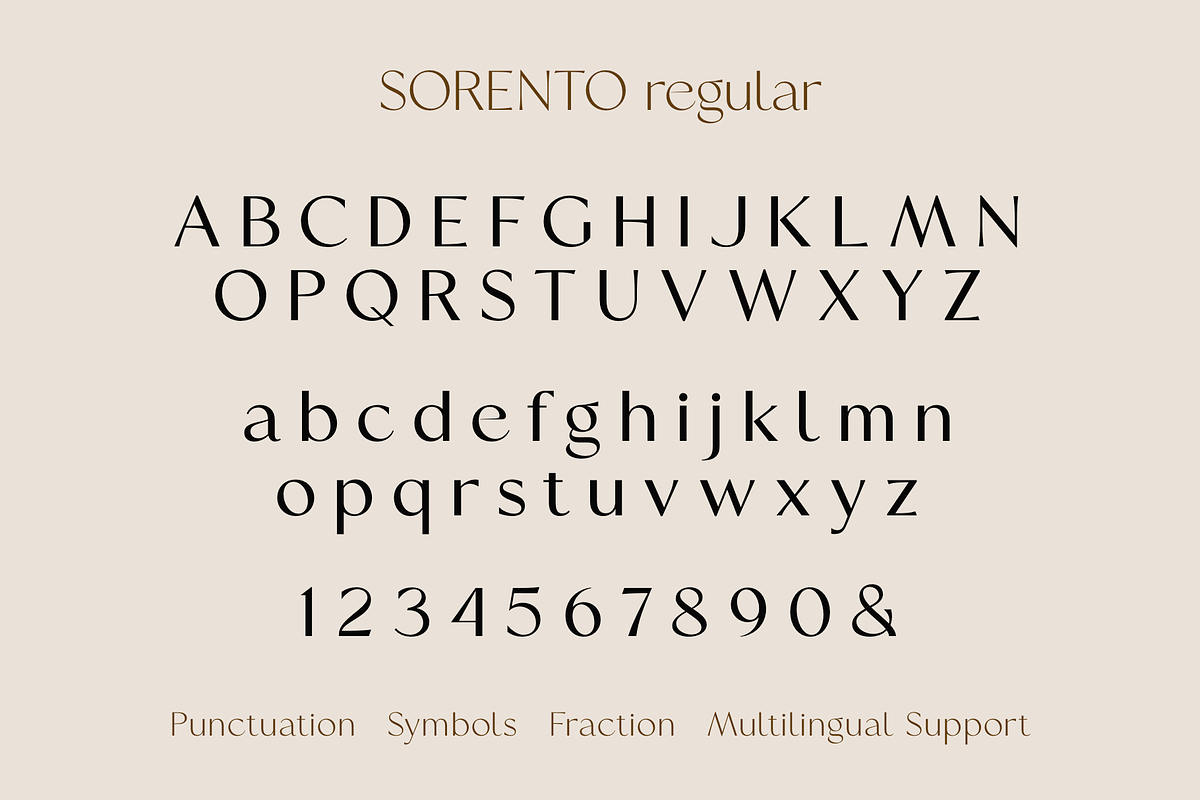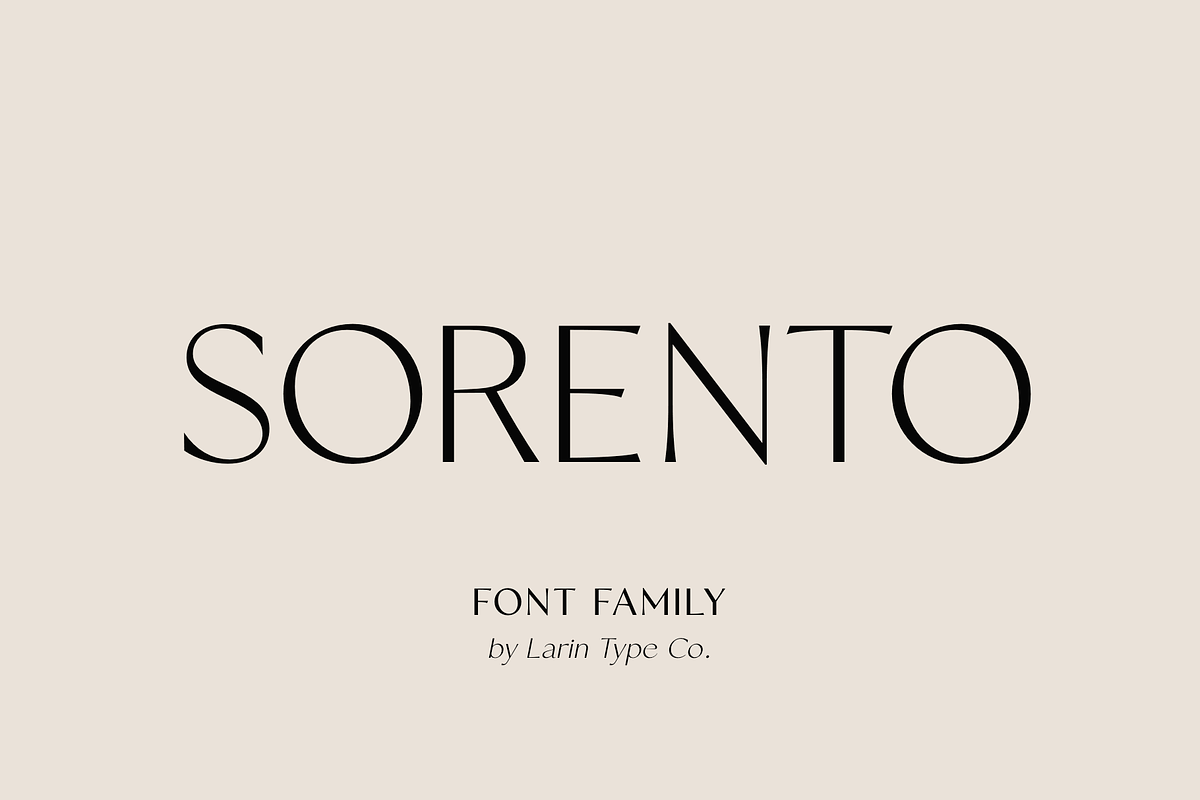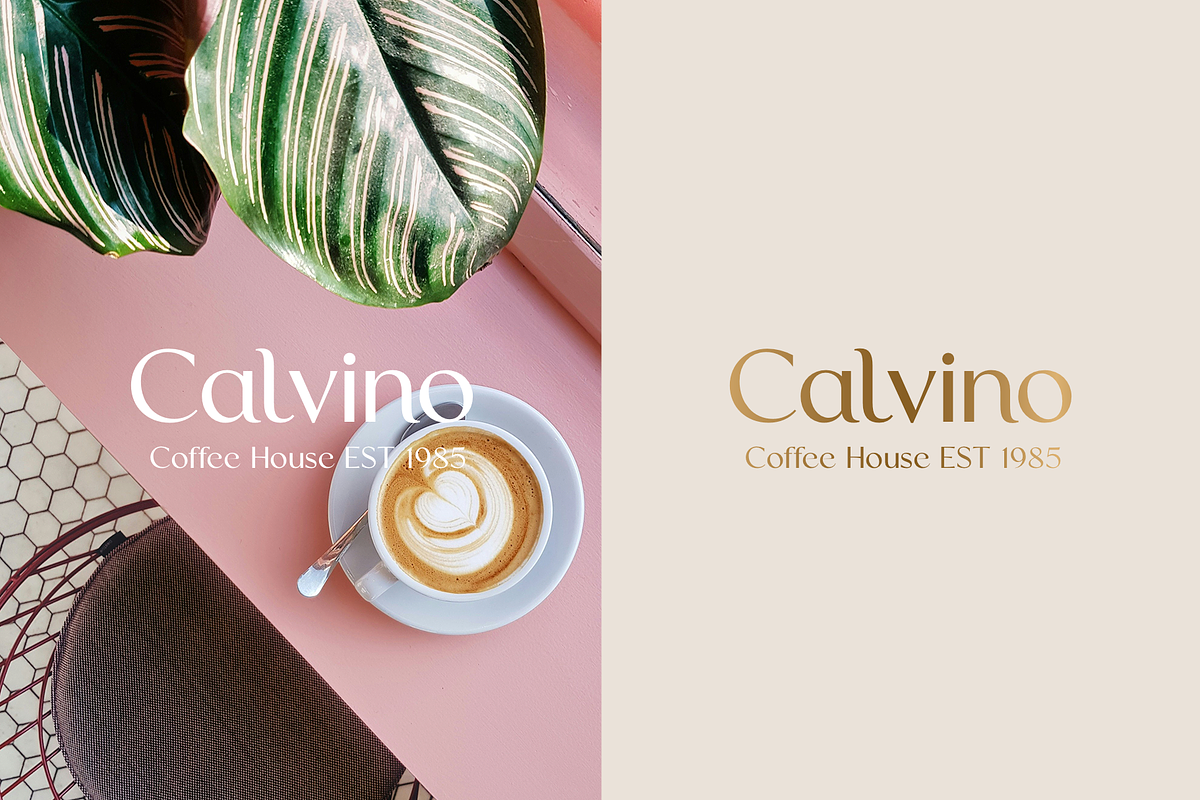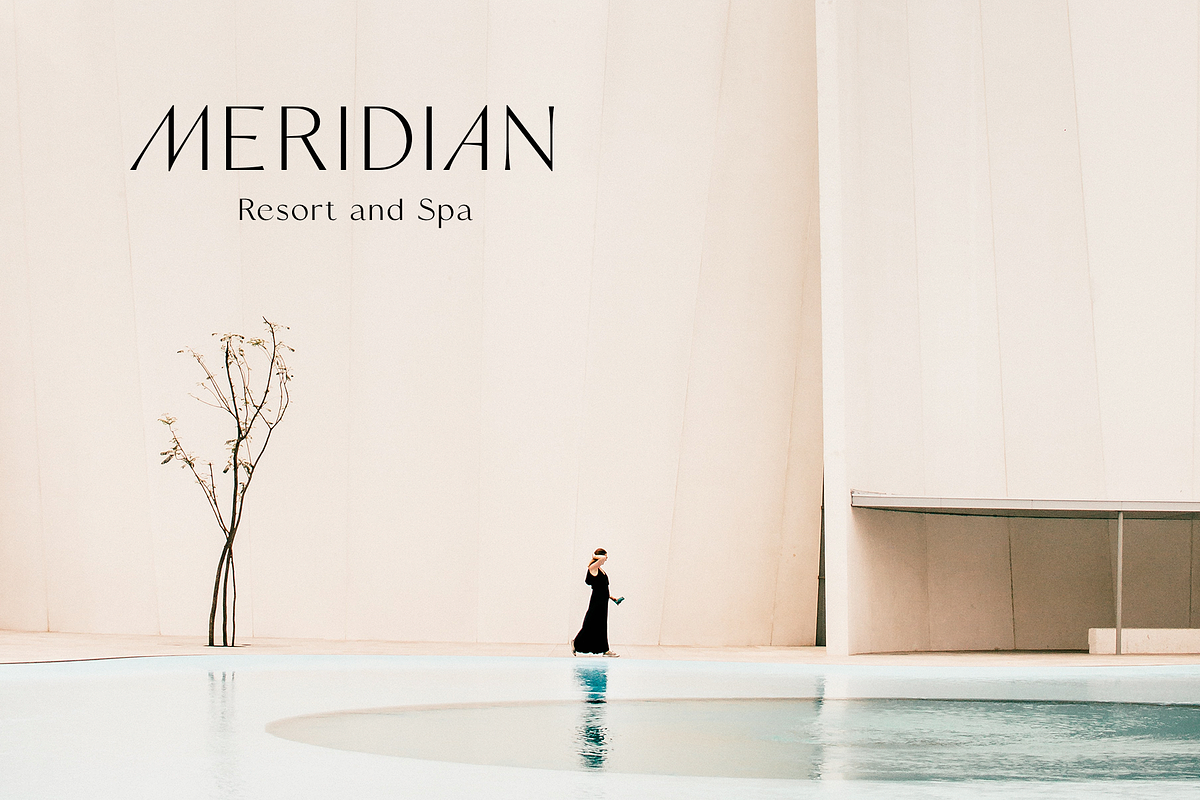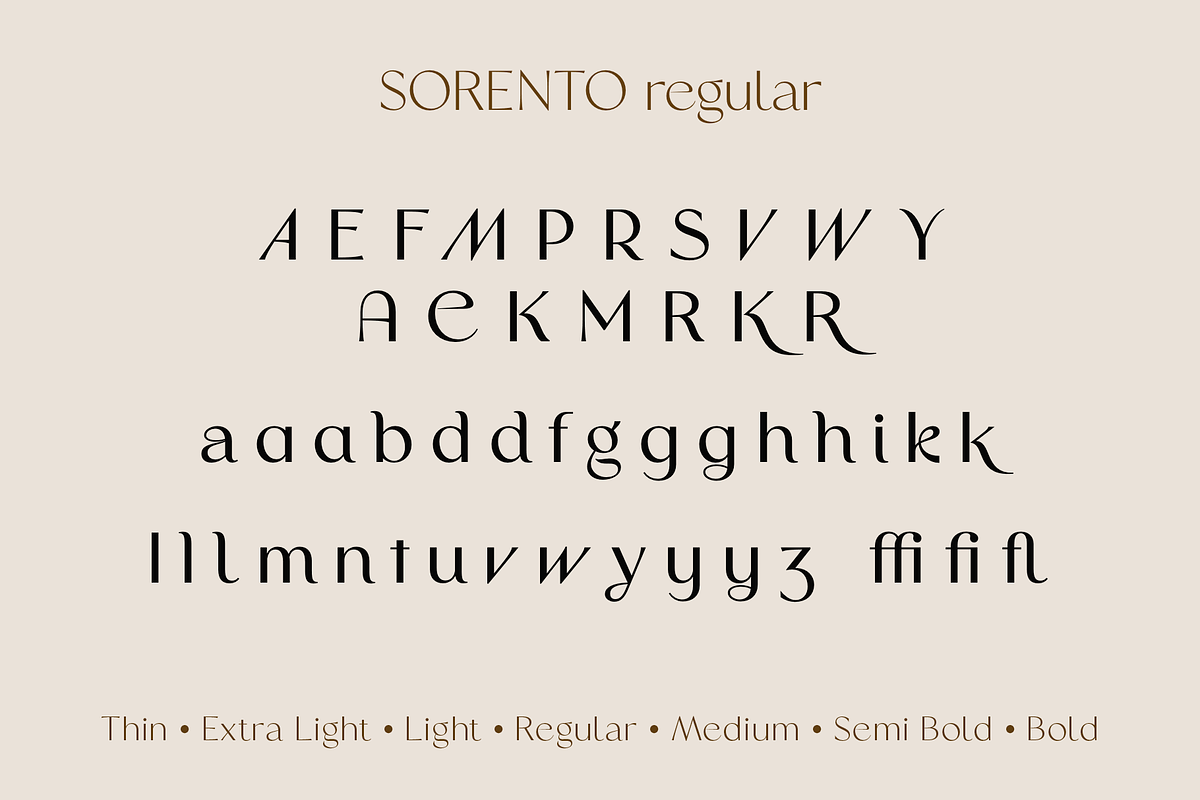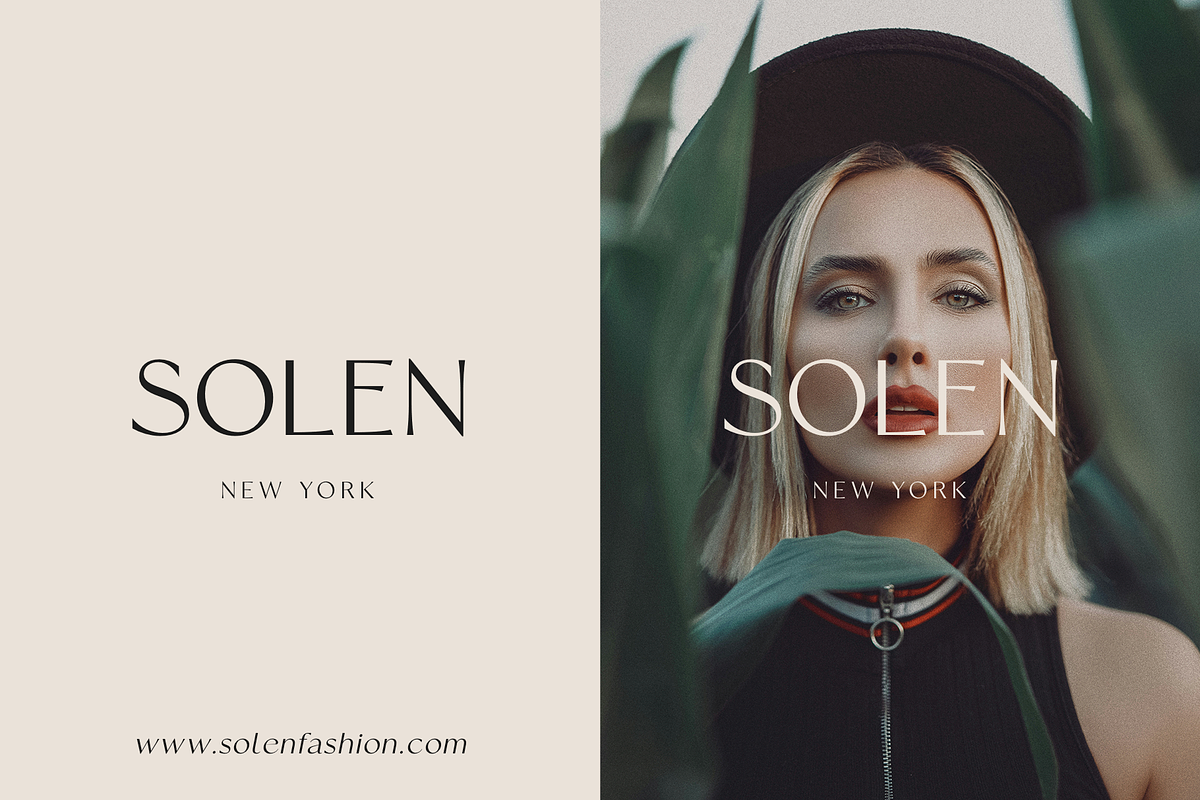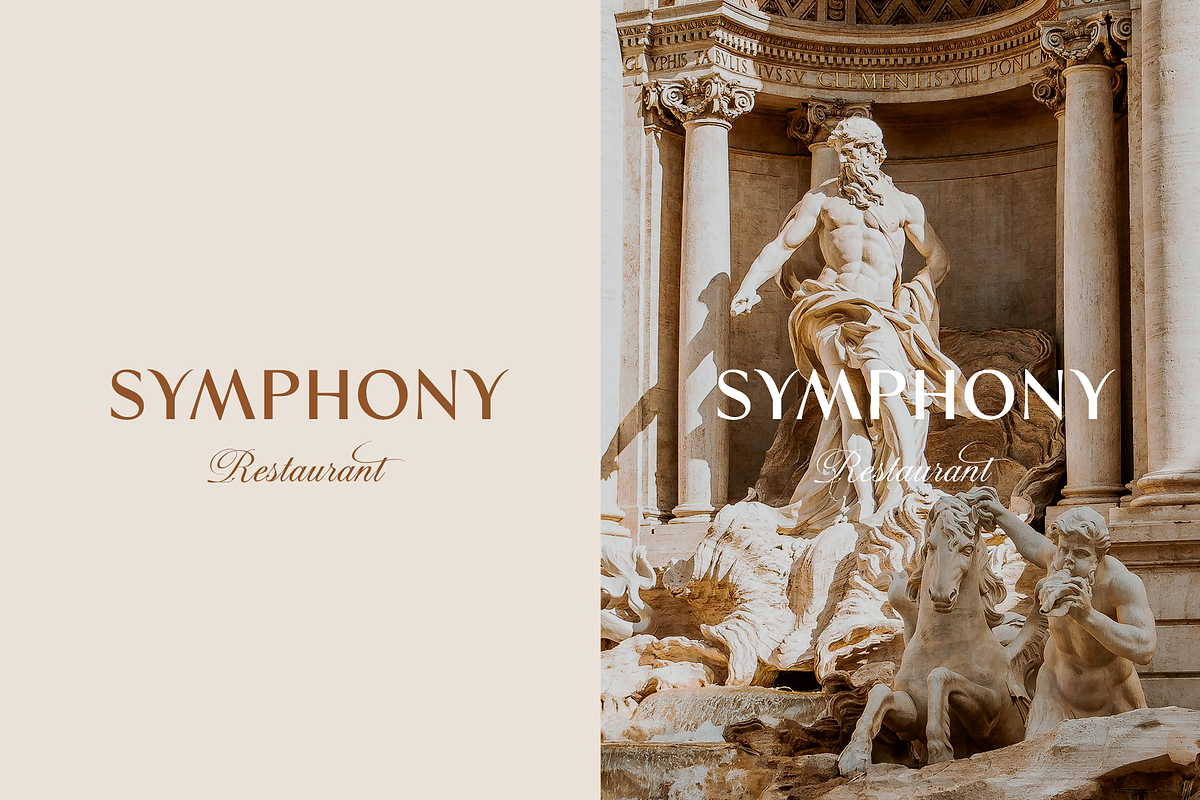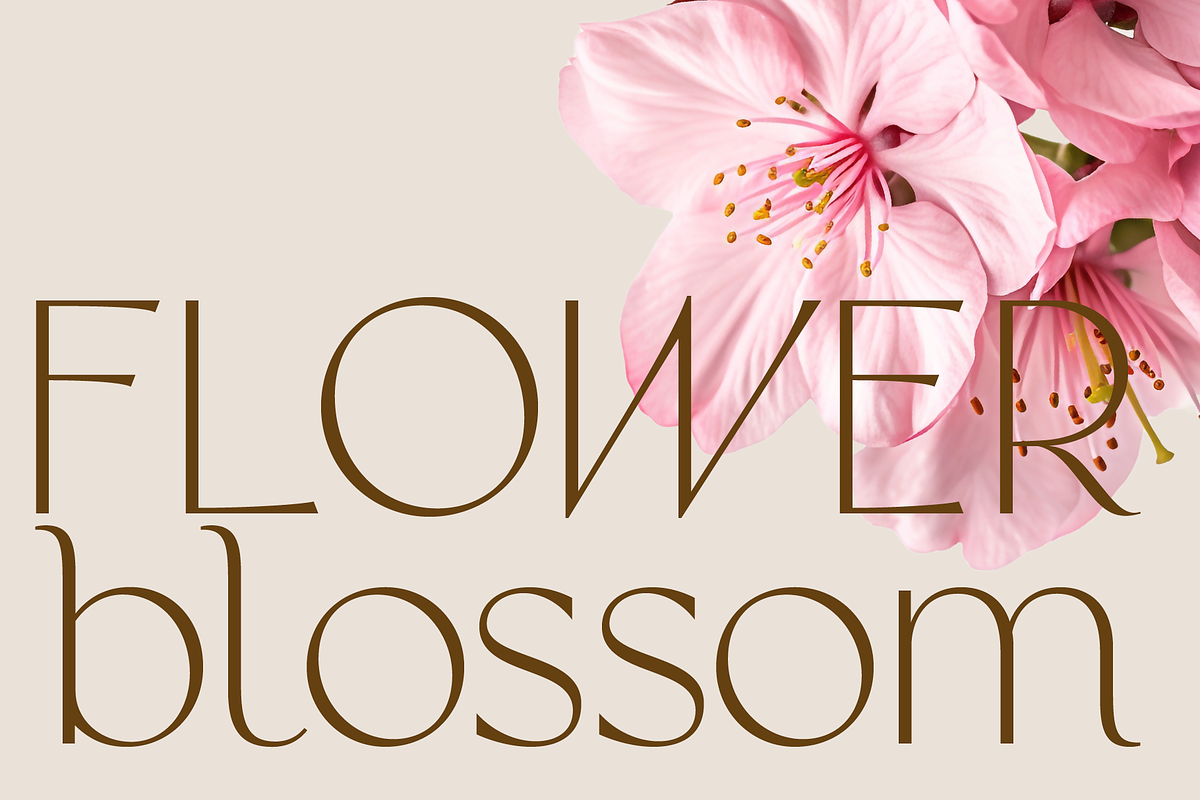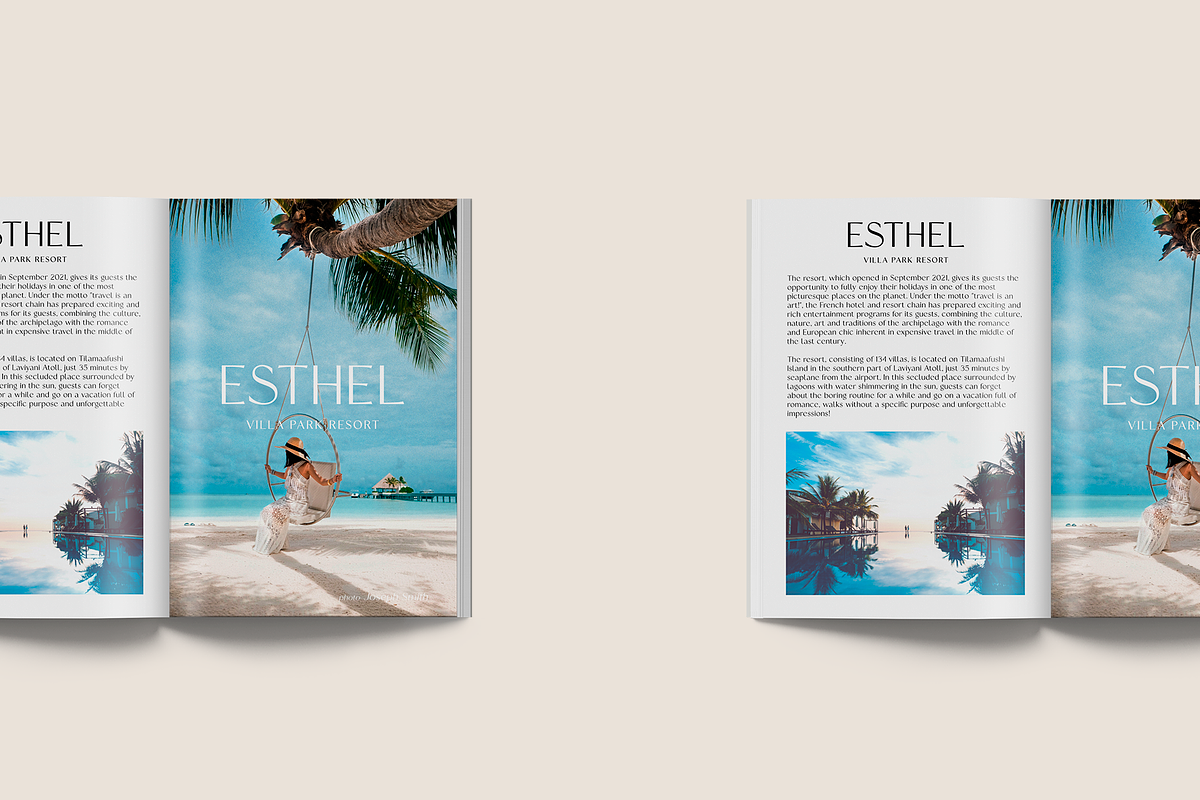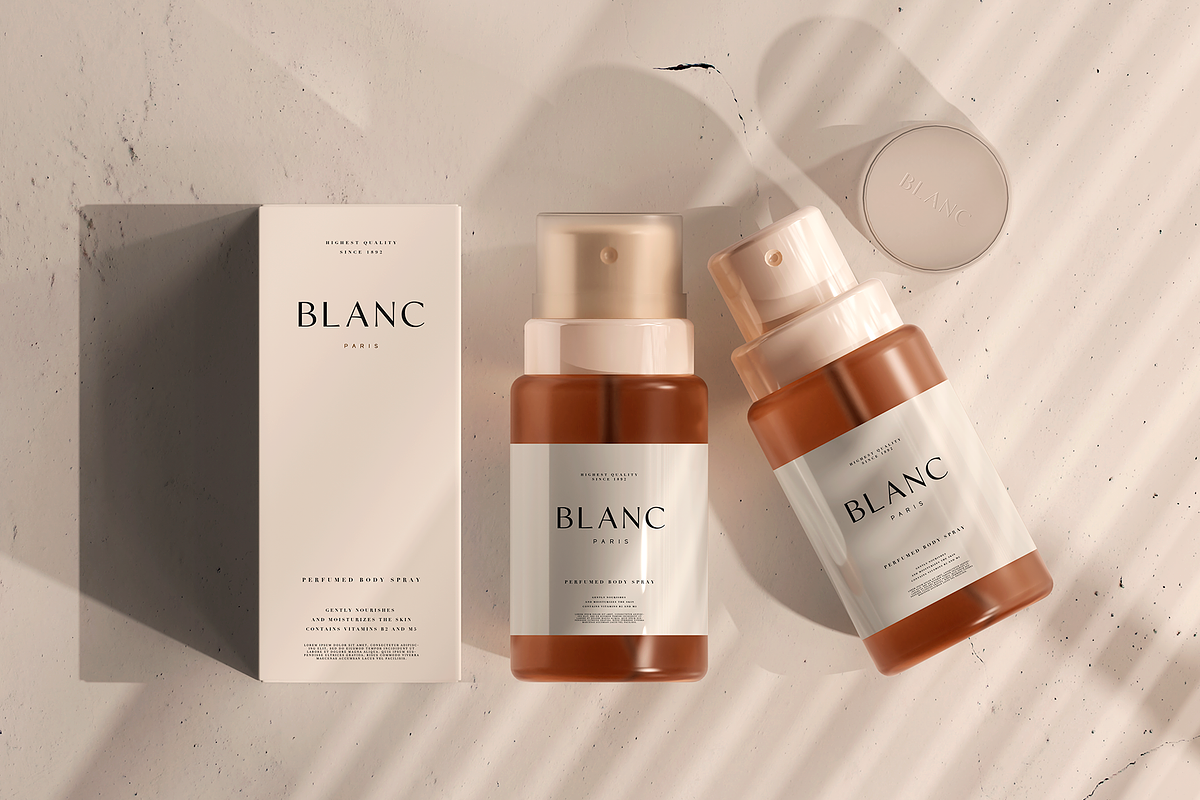
Sorento | Font Family
SORENTO is an elegant, modern and contrast sans-serif font family. It includes upright and Italic style, each of them has seven weights from thin to bold. This is a multi-purpose font that is perfect for any project, it is contrasted, modern and easy to read. With it, you can create logos, use in advertising, packaging, book covers and magazines, headings, descriptions and much more.
SORENTO includes stylistic alternates with a teardrop-shaped tail for uppercase and lowercase, with them, you can change the style of your project and add personality to it and make it more stylized. This font is easy to use has OpenType features.
Following international symbols support: ÀÁÂÃÄÅĄÇĆÈÉÊËĘÌÍÎÏÐÑŃŁÒÓÔÕÖØÙÚÛÜŚŠŸÝŹŻŽßàáâãäåçèéêëìíîïðñòóôõöøùúûüýÿąćęłńśšźżž